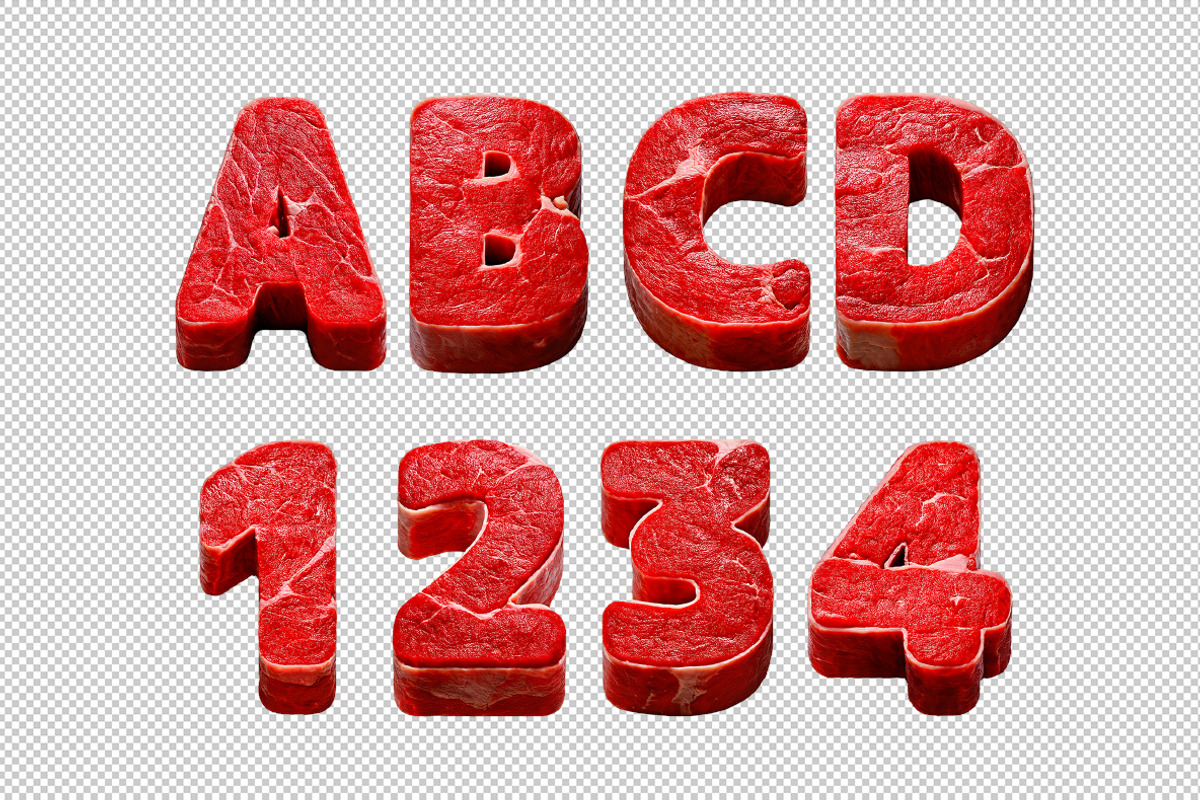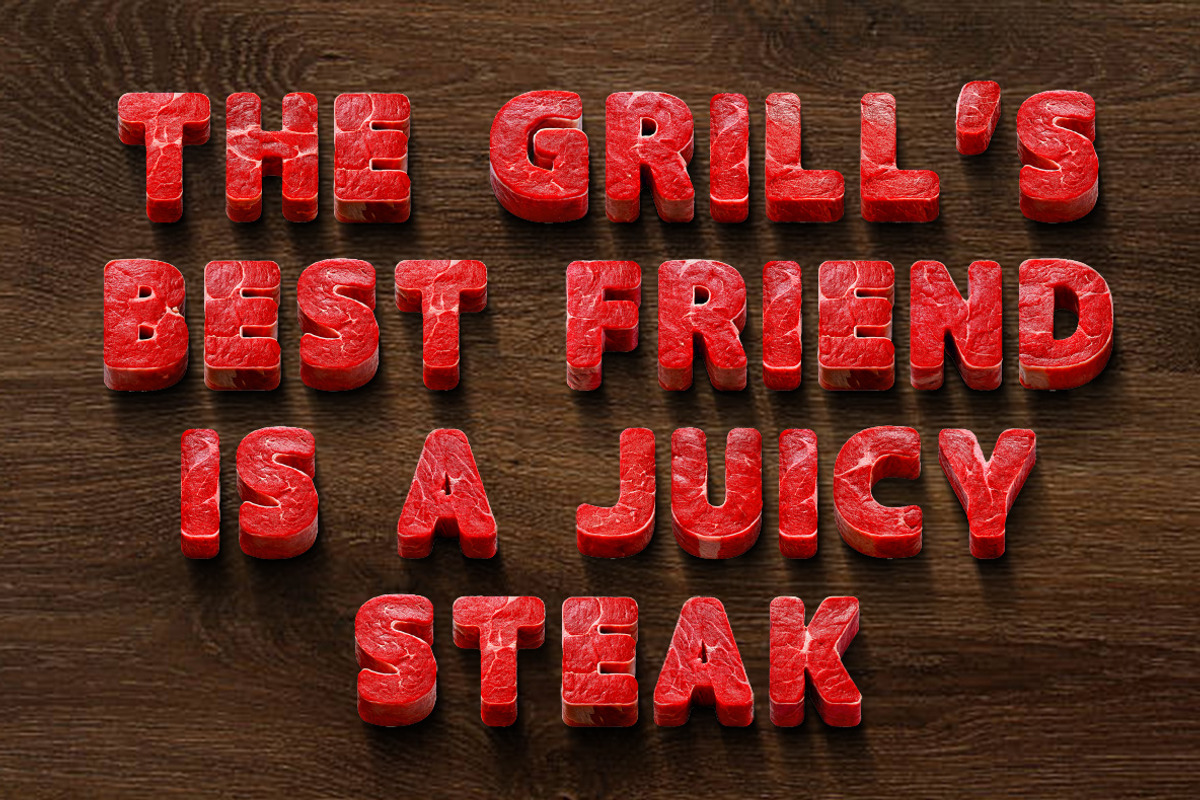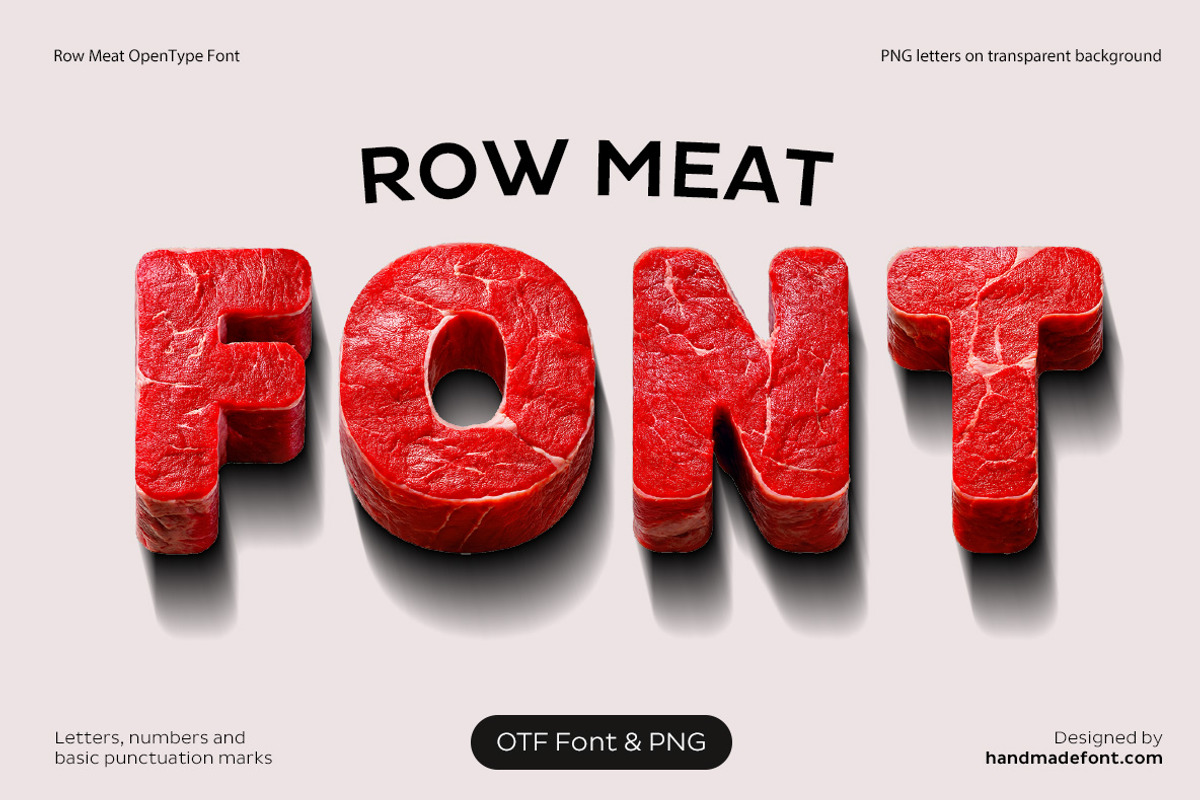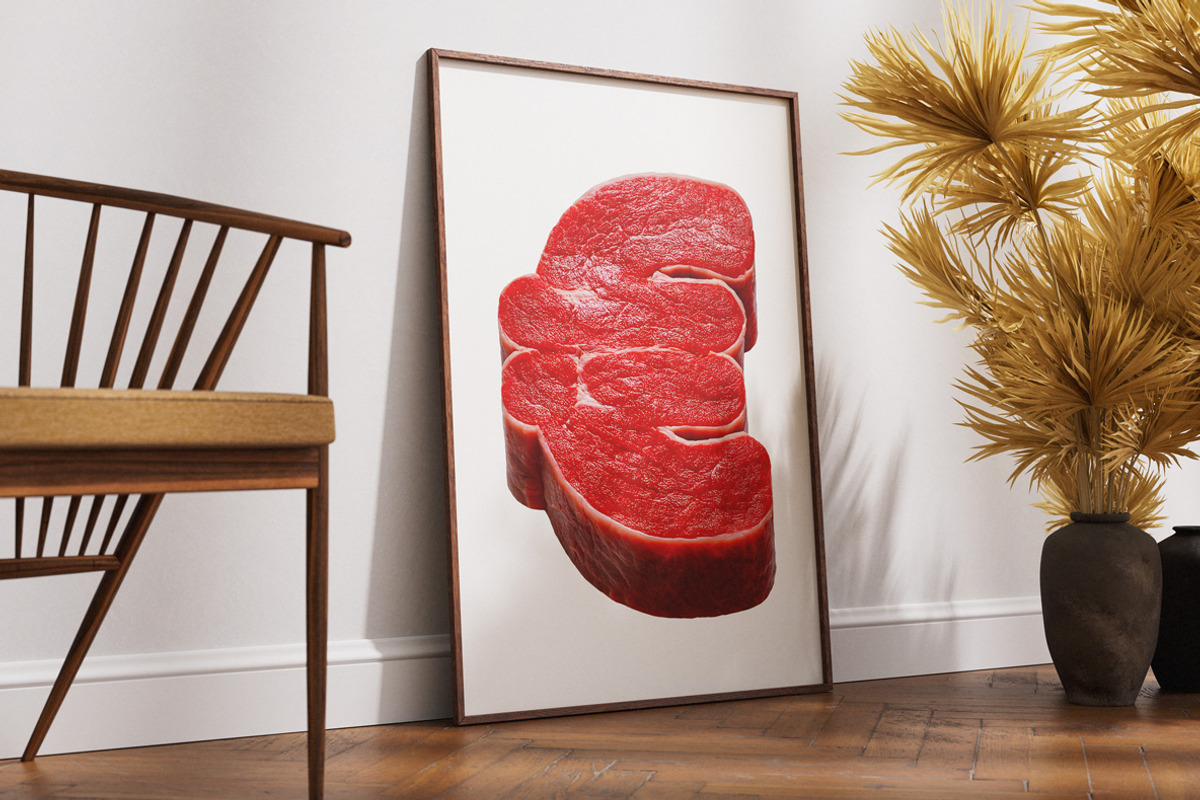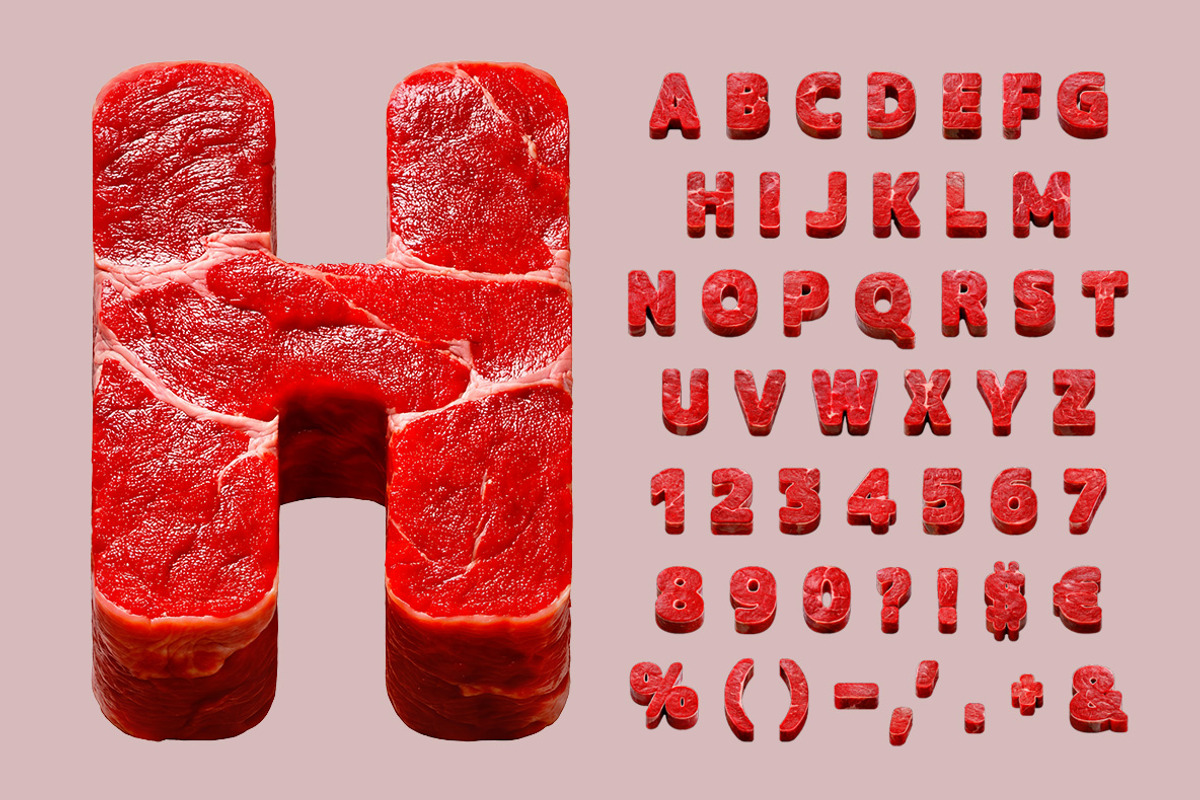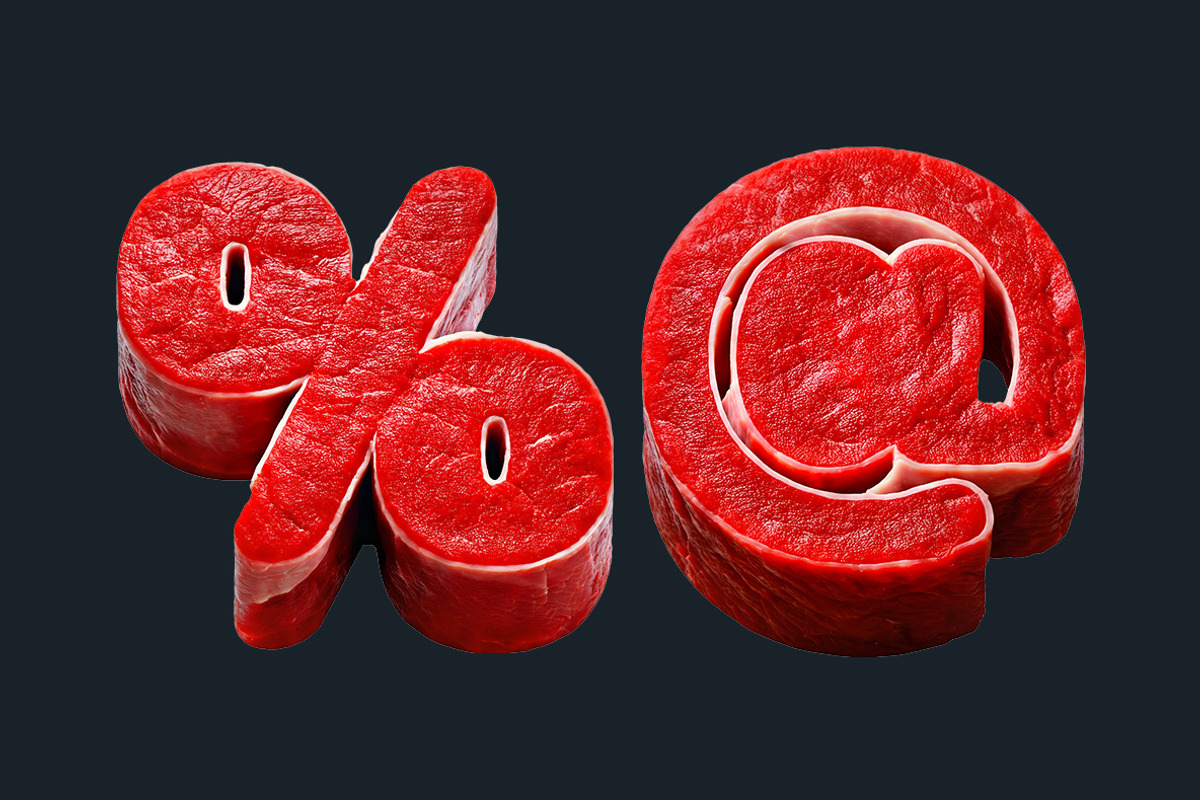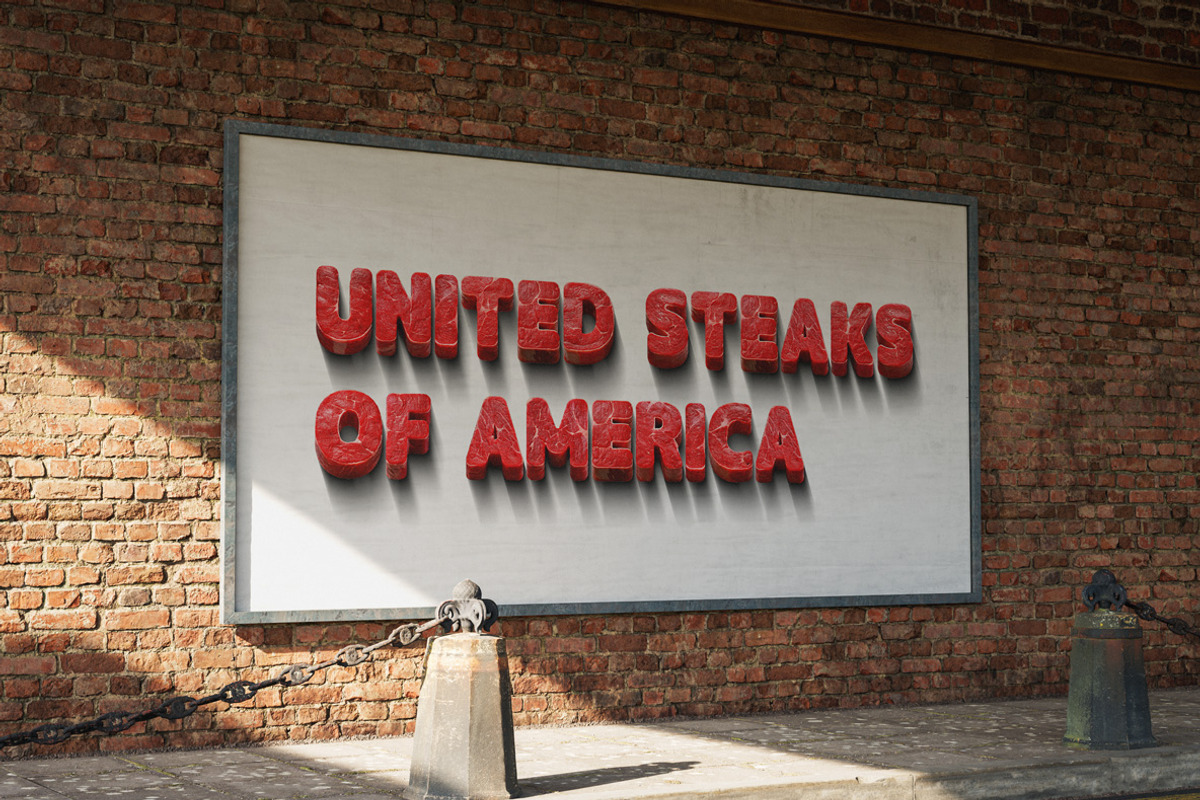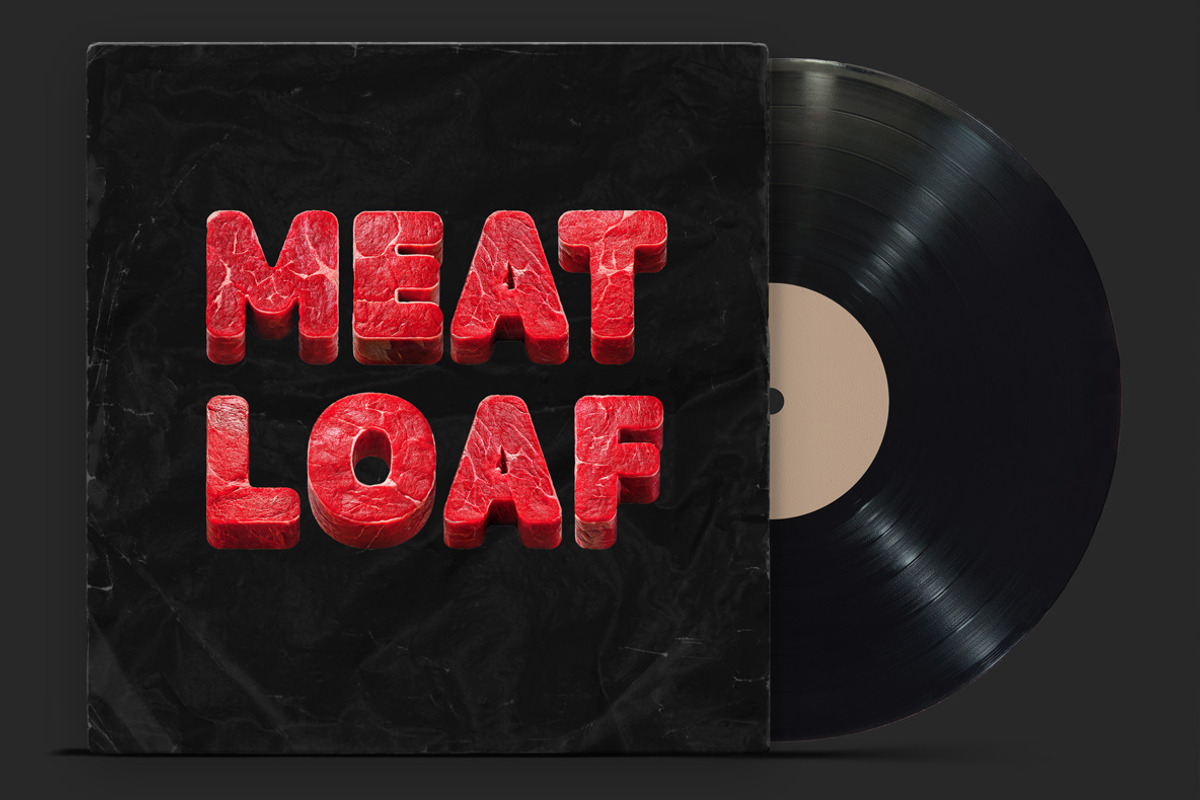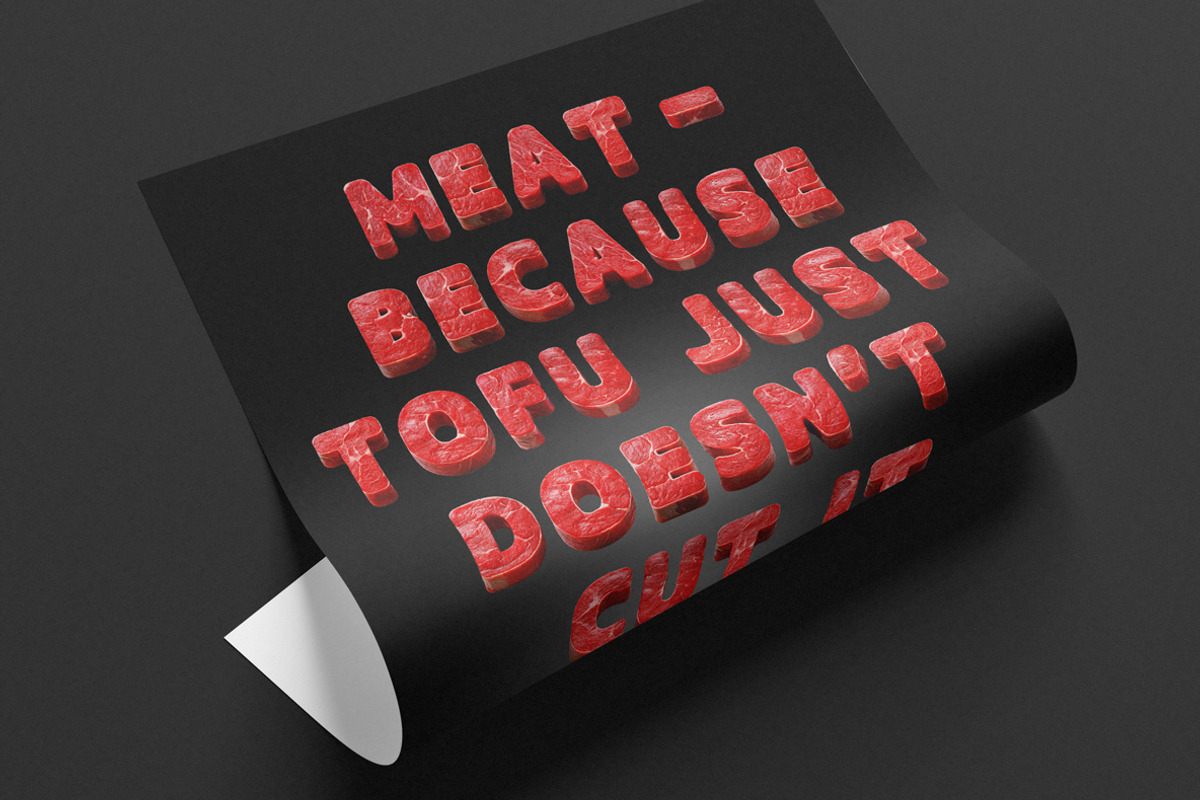
Row Meat Font
Meet the "Row Meat Font," a bold and juicy typeface crafted entirely from raw meat streaks! Each letter captures the rich, marbled texture of steak, creating a striking and flavorful design. Perfect for food-themed projects, restaurant branding, or eye-catching posters, this unique alphabet delivers a fresh and meaty aesthetic. Whether you're craving creativity or serving up bold ideas, "Row Meat Font" satisfies every design appetite with its savory, raw appeal. A true feast for the eyes!
- Letters : A B C D E F G H I J K L M N O P Q R S T U V W X Y Z
- Numbers : 0 1 2 3 4 5 6 7 8 9
- Others : ! ? - . ' $ € % & #